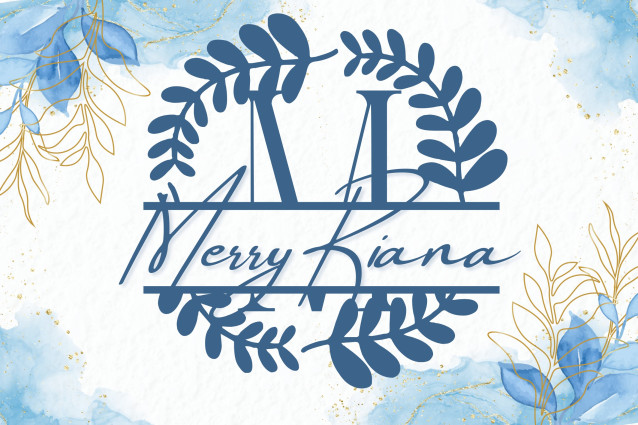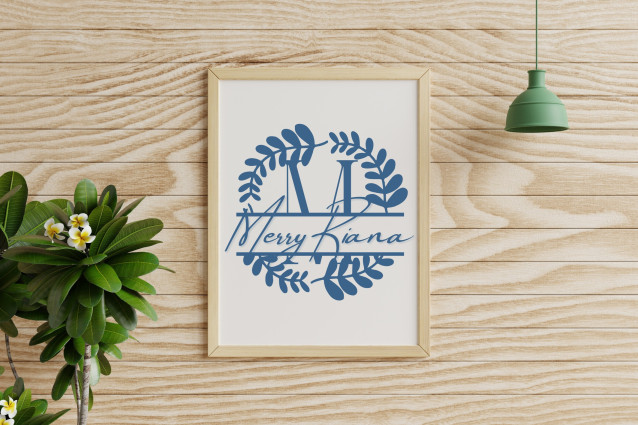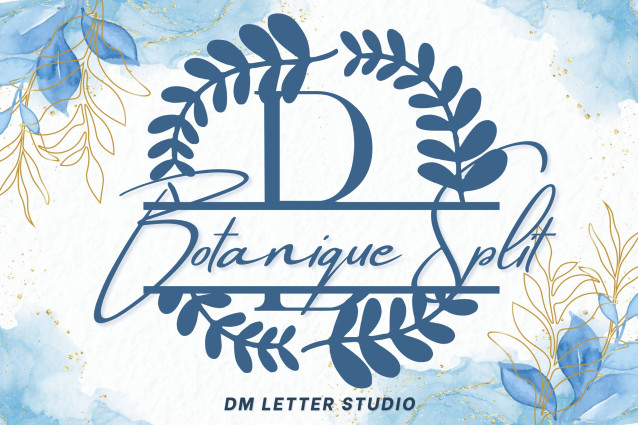
Botanite Split Font
Botanite Split Font is a stylish serif split monogram font featuring elegant uppercase letters enhanced with hand-drawn botanical details and a clean horizontal divide for personalization. This font blends structure and softness, making it ideal for custom Cricut projects, wedding gifts, branding, and floral-inspired design.